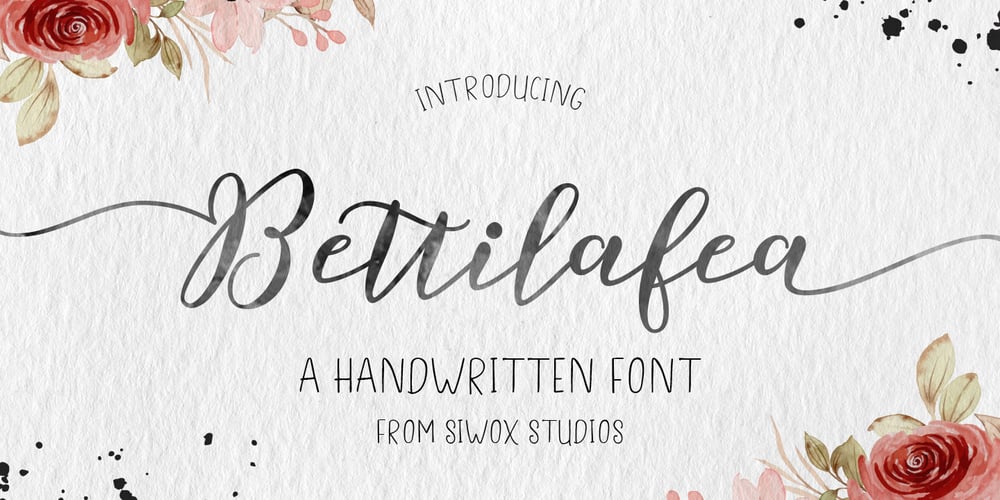
Bettilafea Cute Font Family was designed by Sarwo Edy and published by Siwox Studios. Bettilafea Cute contains 1 styles and family package options. Bettilafea is a playful and easy-to-use handwritten script font. Featuring a modern typeface with a clean handmade style, Bettilafea Script comes with various features such as swashes, ligatures, alternate characters, and international support for most Western languages. With 549 glyphs, it offers plenty of options for customization.This font will instantly elevate your designs to a professional level! Perfect for a wide range of projects, including advertisements, logos, branding, posters, social media, lyrics, text on videos, wedding invitations, greeting cards, quotes, and more.